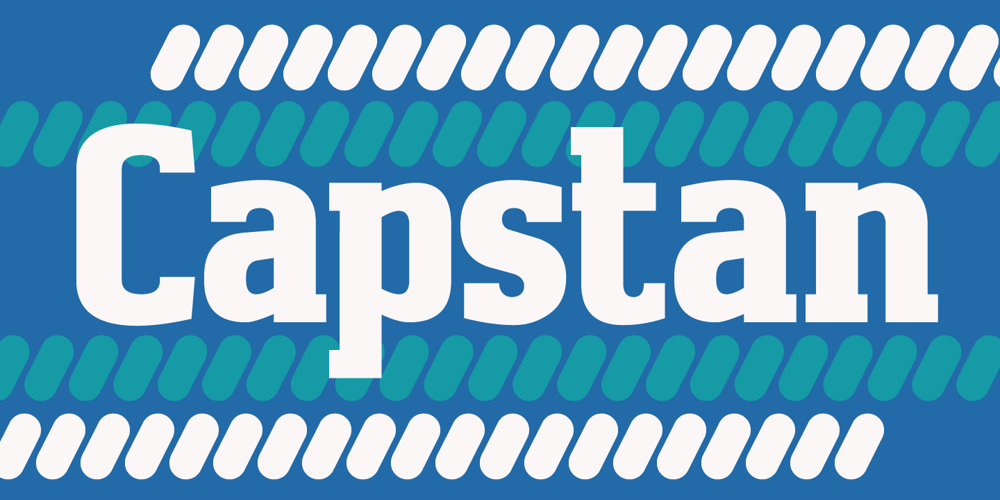
Capstan
Capstan font
Capstan Font Family was designed by Keith Tricker and published by Studio K. Capstan contains 2 styles and family package options. Bold yet distinctive, Capstan is a stand out slab serif ideal for signage, headlines, branding and other applications intended to convey strength and character